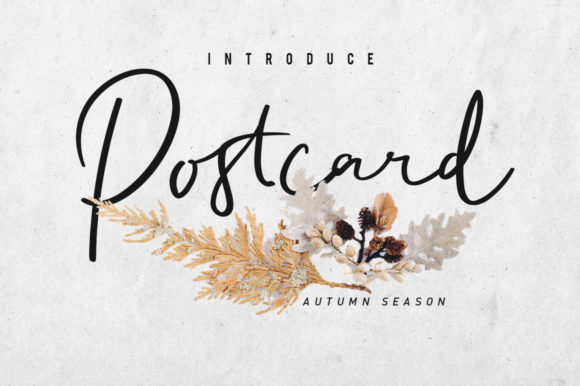
Postcart Script: A Fresh Take on Elegant Typography
Finding a script font that feels both sophisticated and approachable can be a challenge. Many scripts lean heavily into formal calligraphy, while others become so casual they lose professional polish. Postcart Script strikes a compelling balance, offering a relaxed, adaptable style with a distinctly modern edge. It’s the kind of typeface that feels instantly familiar yet fresh, making it a versatile asset for a wide range of creative work.
Understanding the Visual Character of Postcart Script
At its core, Postcart Script is a connected script font, meaning its letters flow into one another with smooth, natural joins. However, unlike traditional cursive fonts, it doesn’t mimic rigid penmanship. The letterforms have a gentle, organic rhythm with slightly varied baseline movement and subtle imperfections that give it a human touch. The strokes feature a moderate contrast between thick and thin, creating a lively texture on the page or screen. It avoids the overly swirly or decorative flourishes that can date a script, opting instead for clean, confident curves.
The personality of Postcart Script is best described as classy and elegant without being stuffy. It carries a modern sensibility—think of a well-designed boutique logo or the typography on a premium wedding invitation. There’s a warmth and approachability here, making it feel personal and crafted. It’s a premium font in the sense that it feels considered and refined, yet it remains highly functional across diverse applications. This isn’t a font that shouts; it communicates with quiet confidence.
Where Postcart Script Truly Shines: Practical Applications
The real strength of Postcart Script lies in its adaptability. It’s a display font at heart, meaning it’s designed to capture attention in headlines, logos, and titles rather than for long body text. Its elegant flow makes it a natural choice for projects where a personal, human element is key.
- Branding and Logo Design: For businesses in fashion, beauty, artisanal goods, or lifestyle services, Postcart Script can form the core of a brand identity. It lends an air of curated elegance to a logo, especially when paired with a clean sans serif font for supporting text. It works beautifully for boutique shops, café menus, or creative studio marks.
- Wedding and Event Stationery: This is a classic use case for a good script font. Postcart Script’s balanced elegance makes it ideal for invitations, save-the-dates, and thank you cards. It feels celebratory and personal without being overly whimsical, ensuring the stationery feels sophisticated and timeless.
- Editorial and Packaging Design: In editorial design, it can add a touch of personality to magazine headings, pull quotes, or chapter titles. For packaging design, especially for cosmetics, gourmet foods, or handmade products, it communicates quality and care, helping a product stand out on the shelf.
- Digital Presence and Social Media: A creative font like this is invaluable for digital content. Use it for impactful Instagram graphics, YouTube thumbnails, or website hero sections. It adds visual interest to social media graphics, making quotes and announcements feel more engaging. When used in web design, it’s perfect for one-off headlines or call-to-action phrases, but pairing it with a highly readable serif font or sans serif for body copy is essential.
- Personal and Commercial Projects: Beyond commercial use, it’s a wonderful design asset for crafters creating custom T-shirts, mugs, or posters. For small business owners, it offers a way to add a professional, polished look to invoices, business cards, or promotional materials without needing a full design overhaul.
Making It Work: Guidance for Using Postcart Script Effectively
Choosing a beautiful font is only the first step. Using it well requires a bit of strategy to ensure it enhances your project rather than hinders it.
Pairing for Visual Hierarchy
The most common mistake with script fonts is using them for everything. Postcart Script should be a supporting actor, not the entire cast. Its greatest impact comes from contrast. Pair it with a sturdy, neutral typeface. A classic sans serif font like Montserrat or Lato creates a clean, modern foundation. For a more traditional or readable feel, a serif font like Georgia or Playfair Display can provide excellent contrast in weight and style. The goal is to let Postcart Script handle the emotional, attention-grabbing headlines while the companion font manages the legible, informative text.
Readability and Sizing
As with any display font, size matters. Postcart Script is designed to be seen, so it loses its charm and becomes difficult to read when scaled down too small. Use it at larger sizes for headings, logos, and feature text. Avoid it entirely for paragraphs or small-print legal text. Always test your designs at the intended viewing size—what looks elegant on a large computer screen might become an illegible squiggle on a mobile phone or a printed business card.
In the landscape of modern typography, Postcart Script offers a valuable blend of elegance and approachability. It’s a tool for adding personality, warmth, and a touch of sophistication. By understanding its character, applying it thoughtfully, and pairing it wisely, you can leverage this handwritten font style to elevate your designs and connect more effectively with your audience. Whether you’re building a brand identity